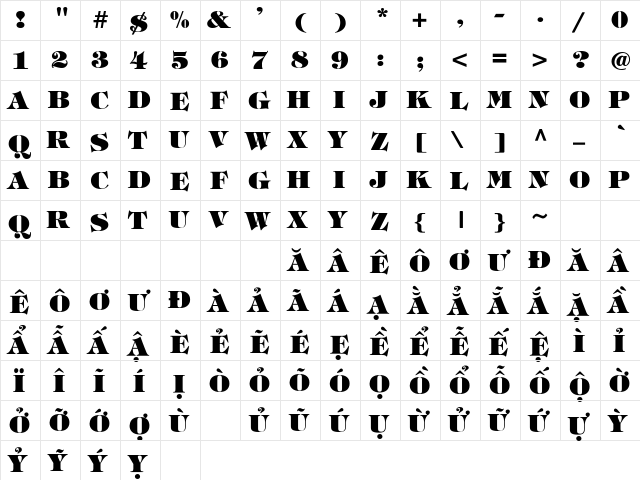
.VnTifani HeavyH Normal
.VnTifani HeavyH is a composed and adaptable typeface that performs quietly and consistently across a wide range of design contexts.